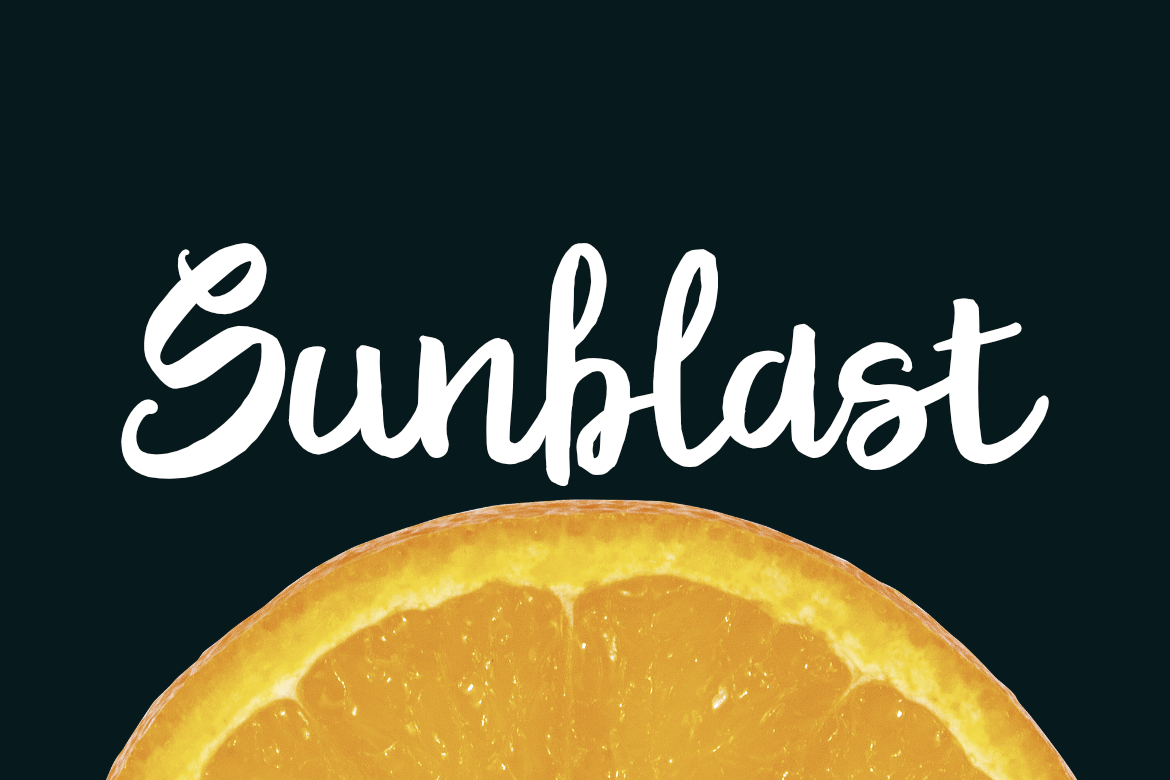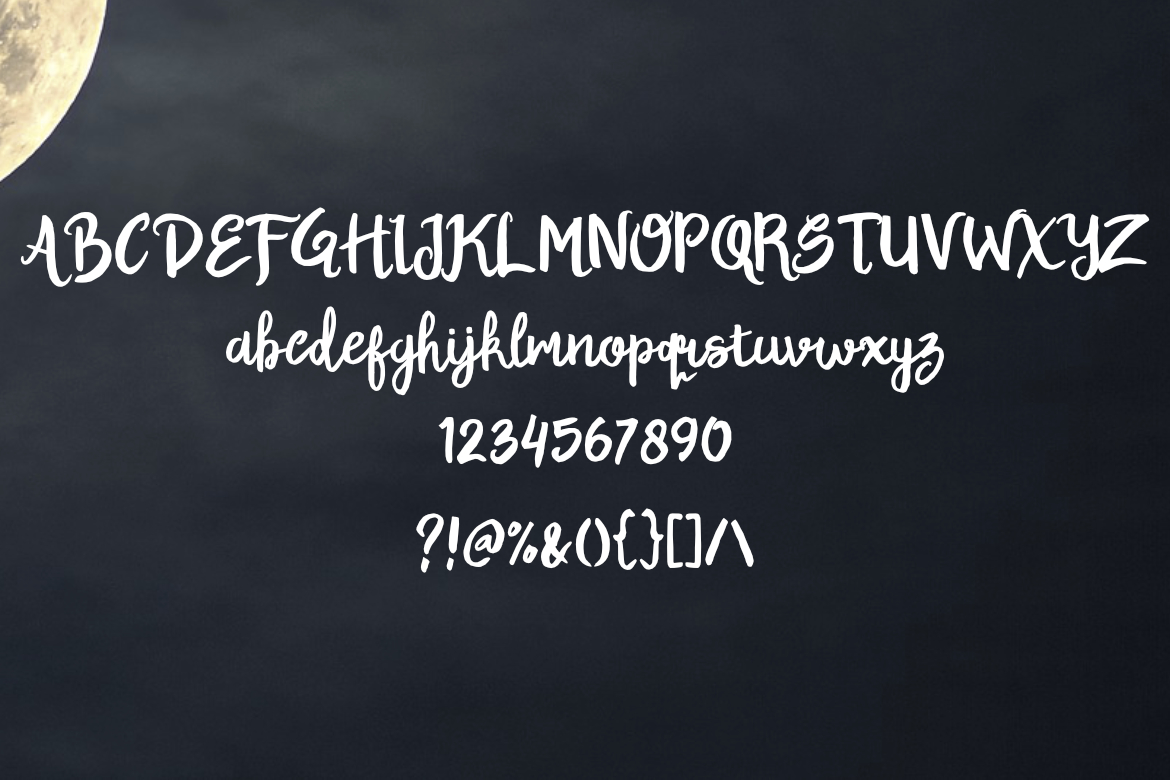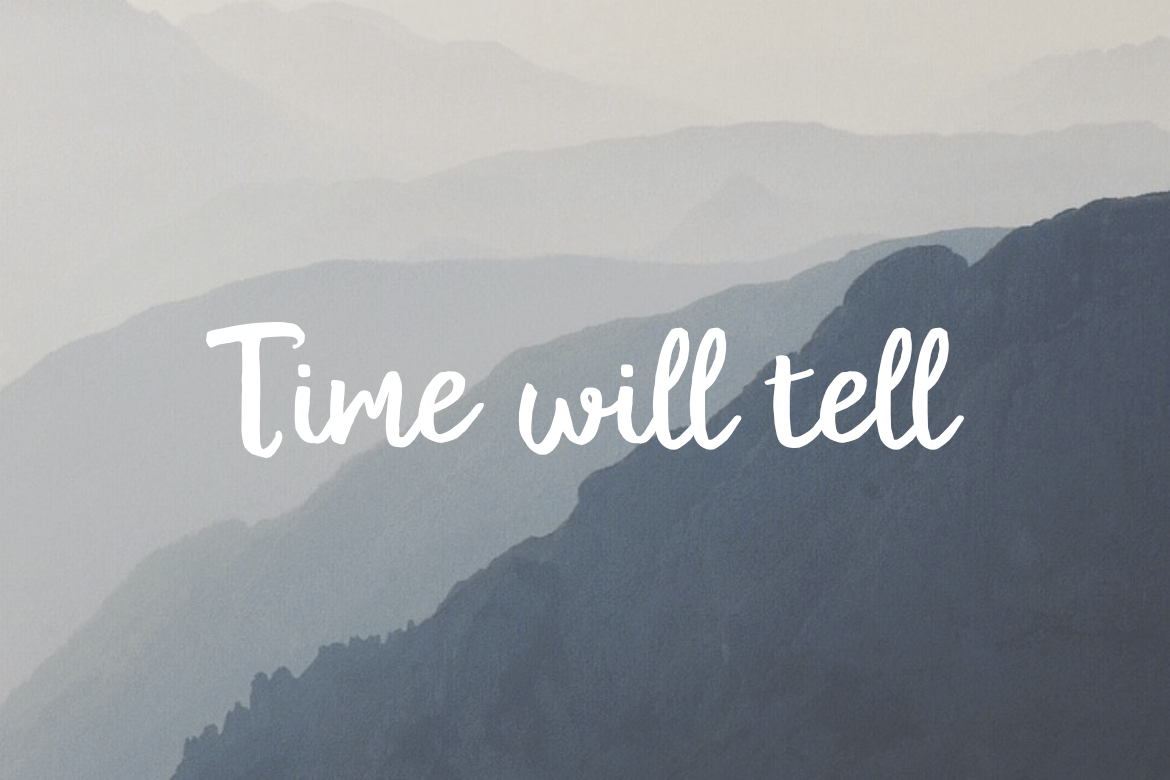
Sunblast Font
About Sunblast Font
Sunblast is a friendly script font, one that works well for body or headline due to its extreme legibility. This font is suitable to a large range of design styles, and truly stands out from the crowd.